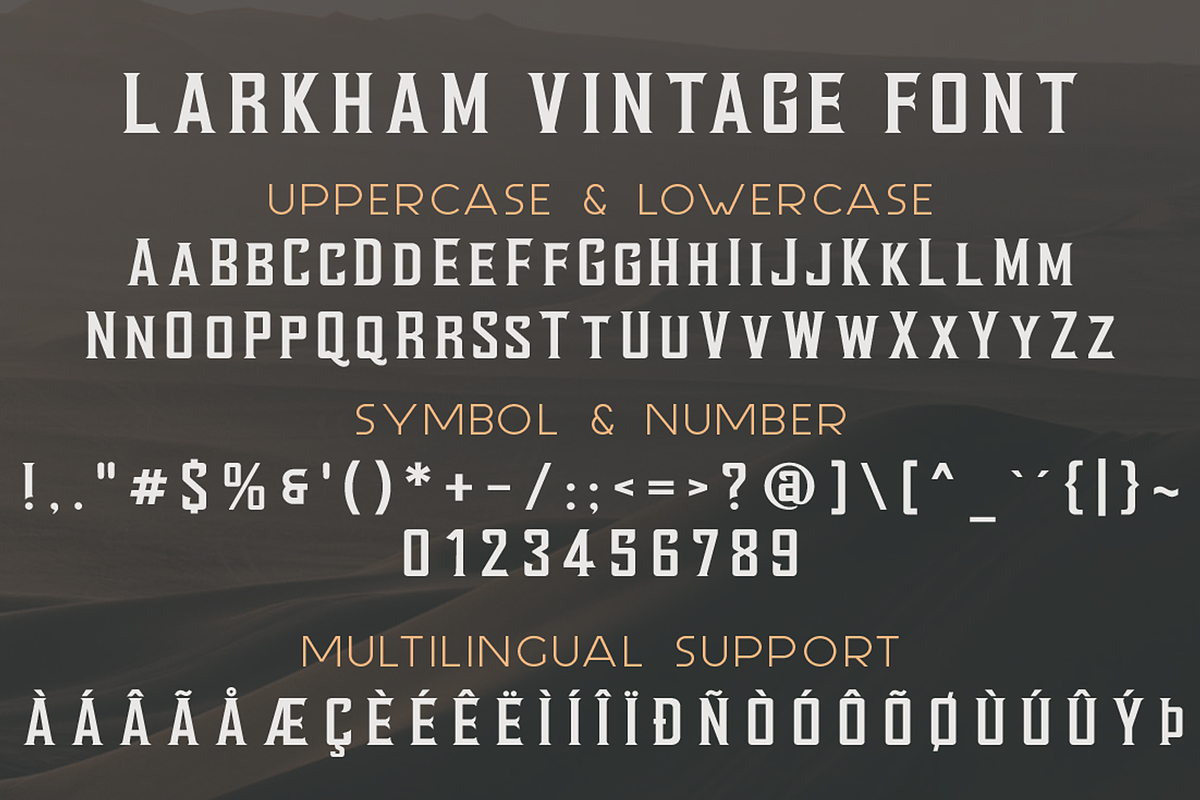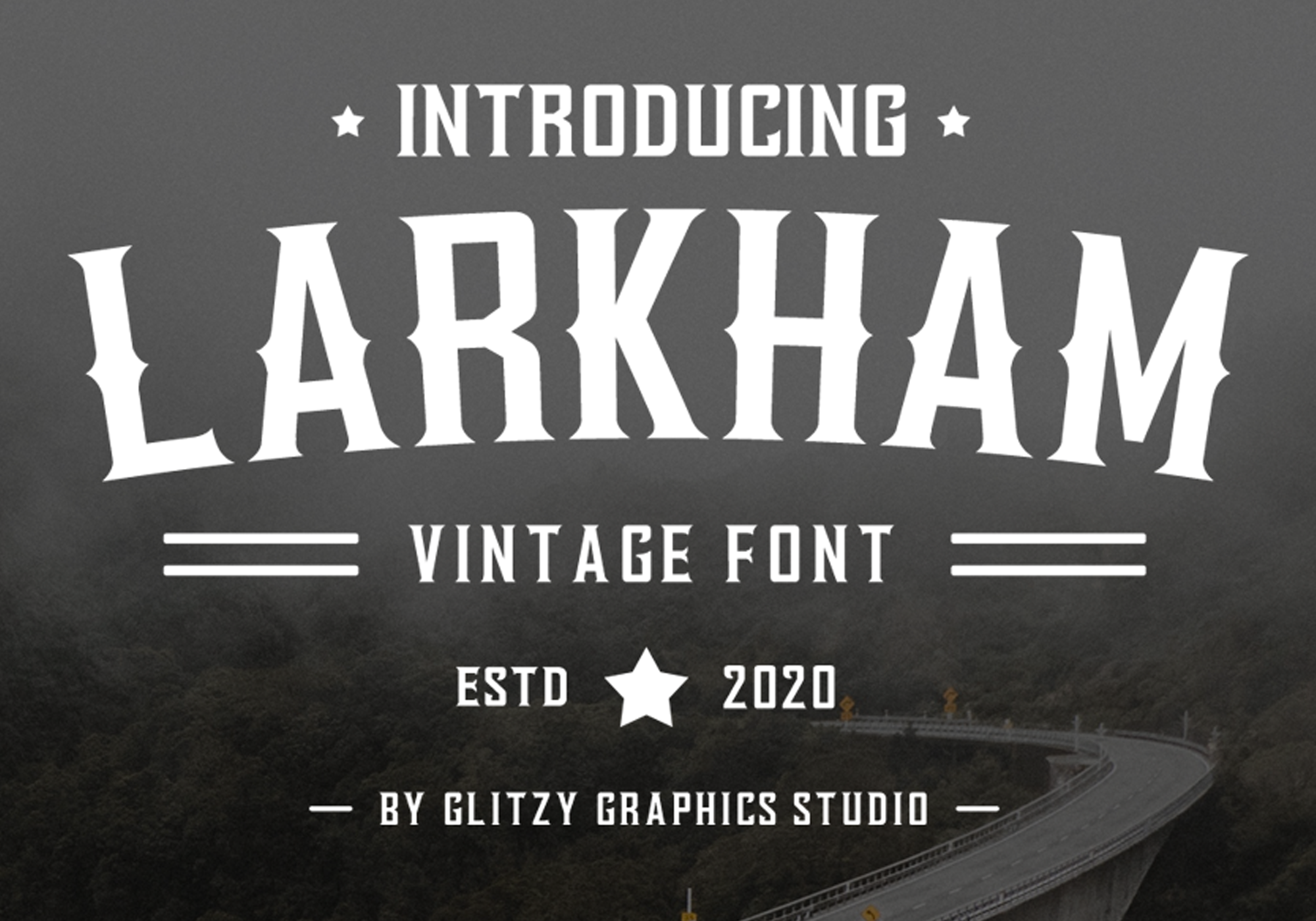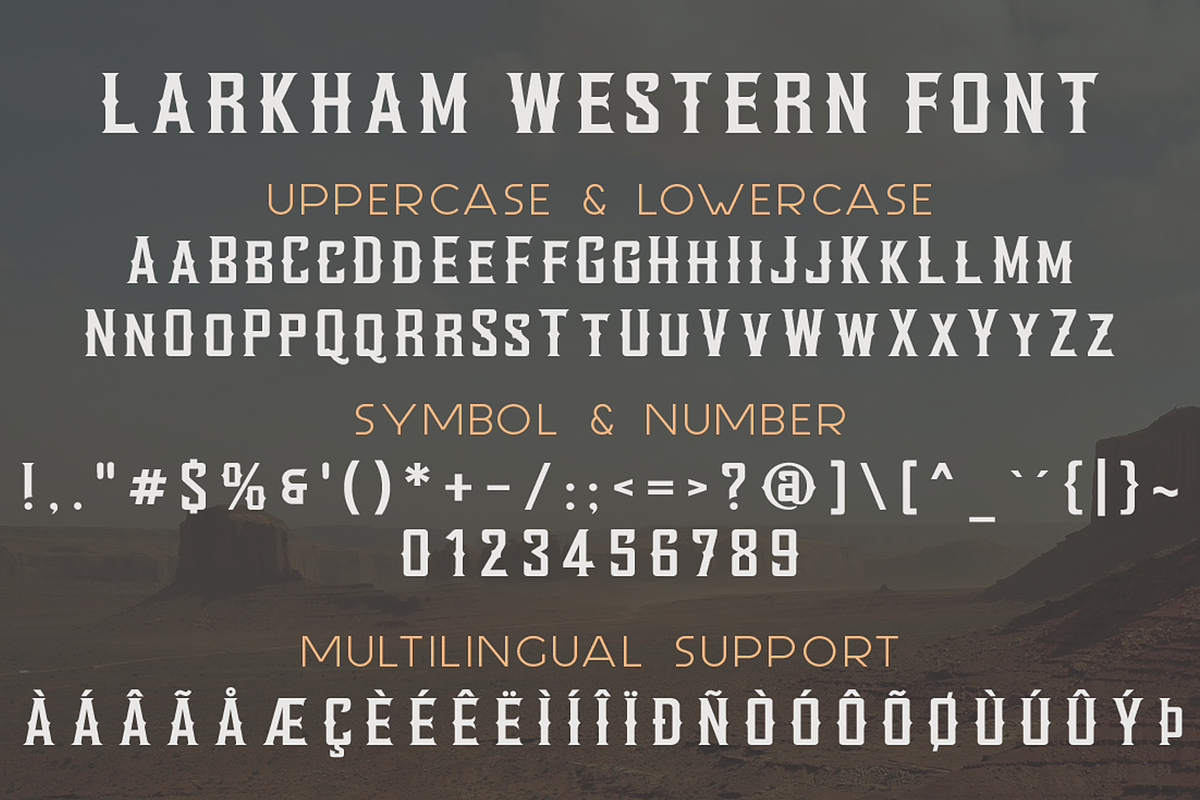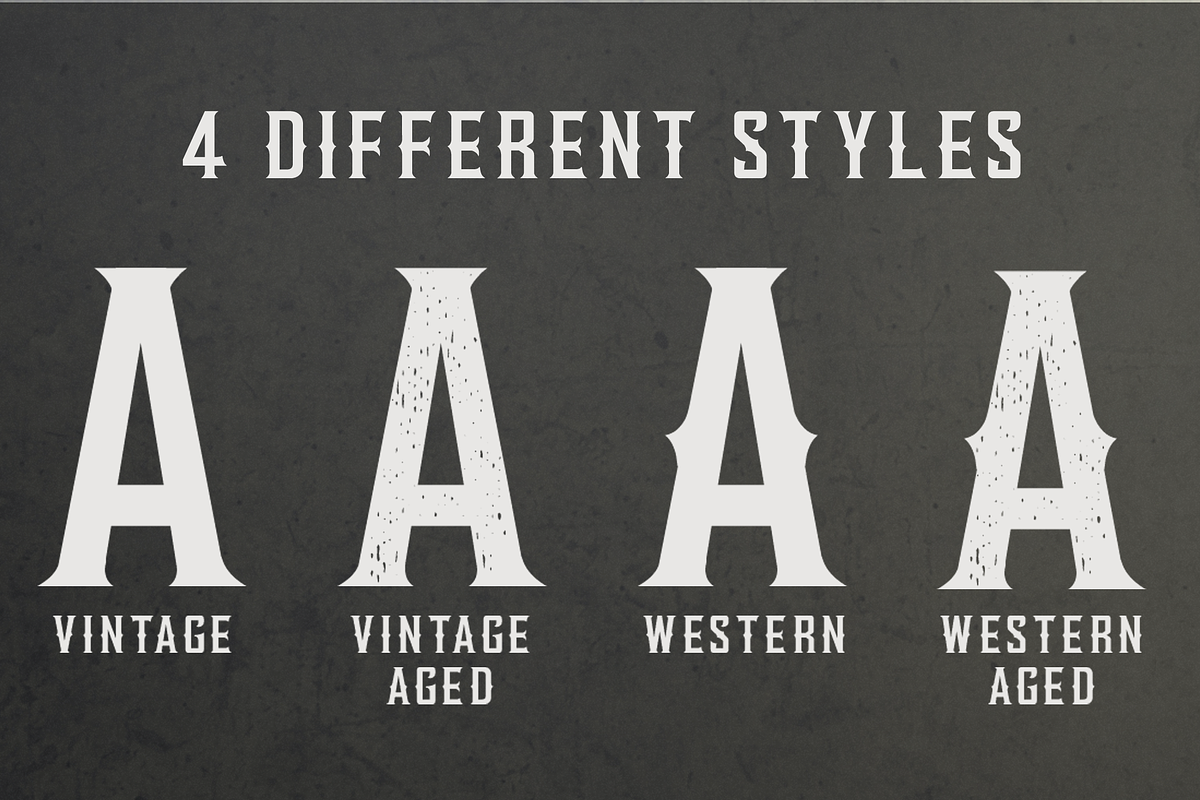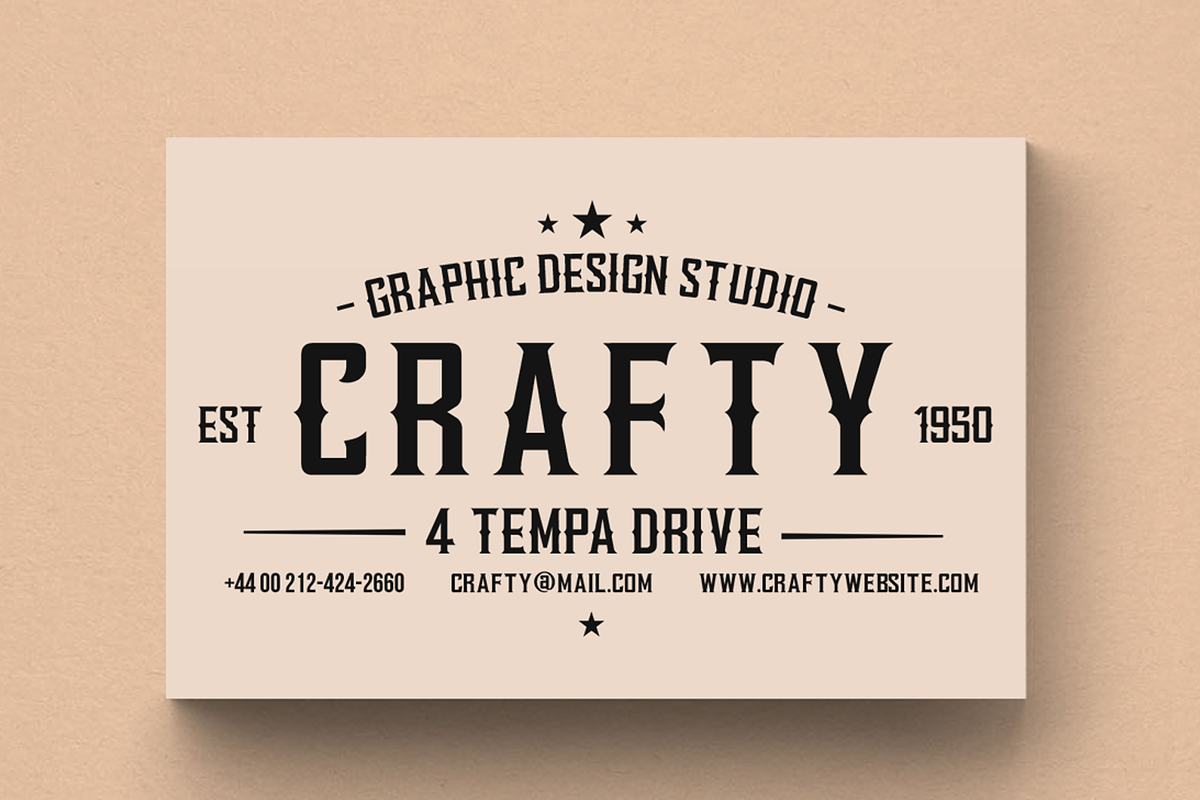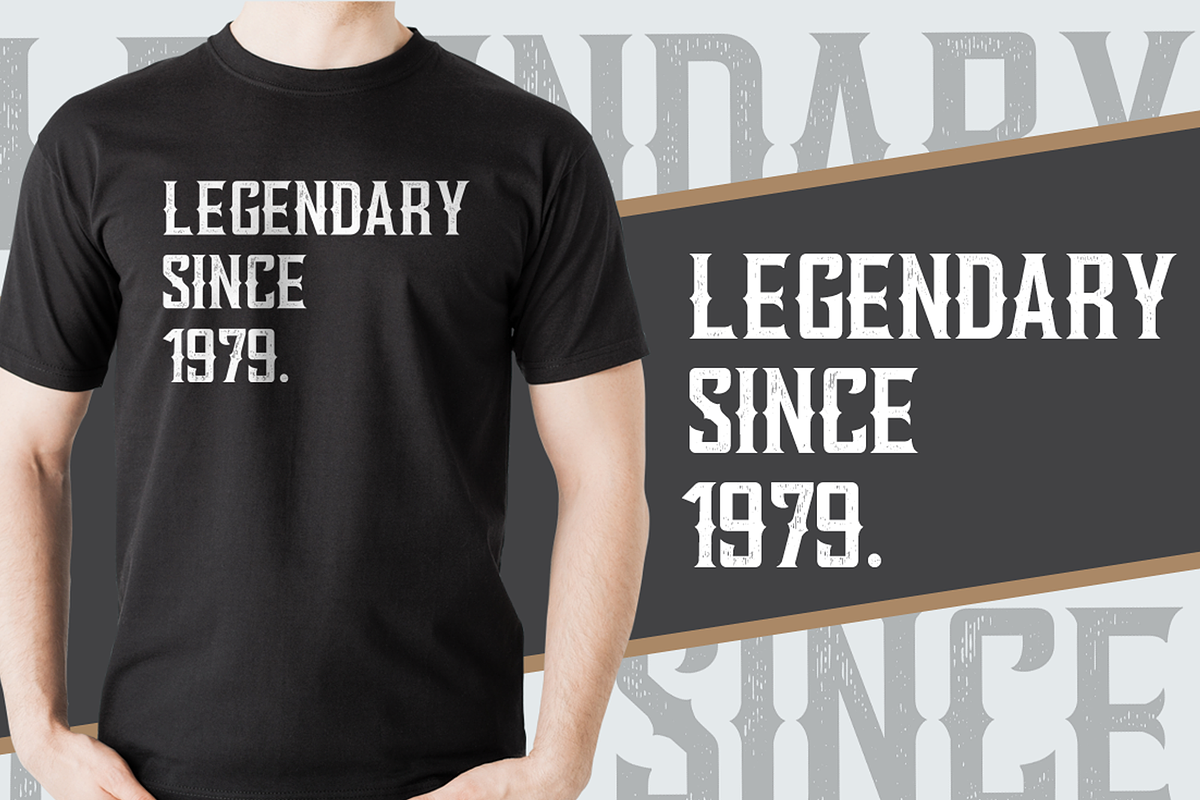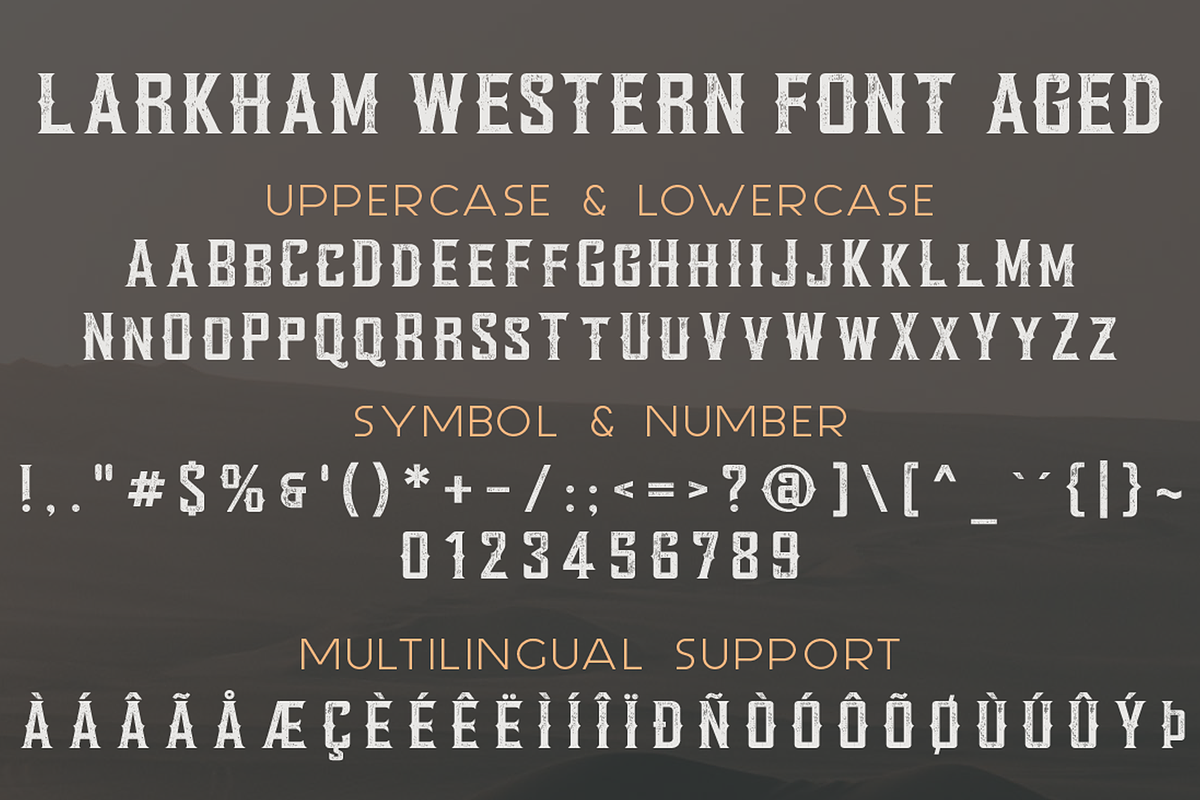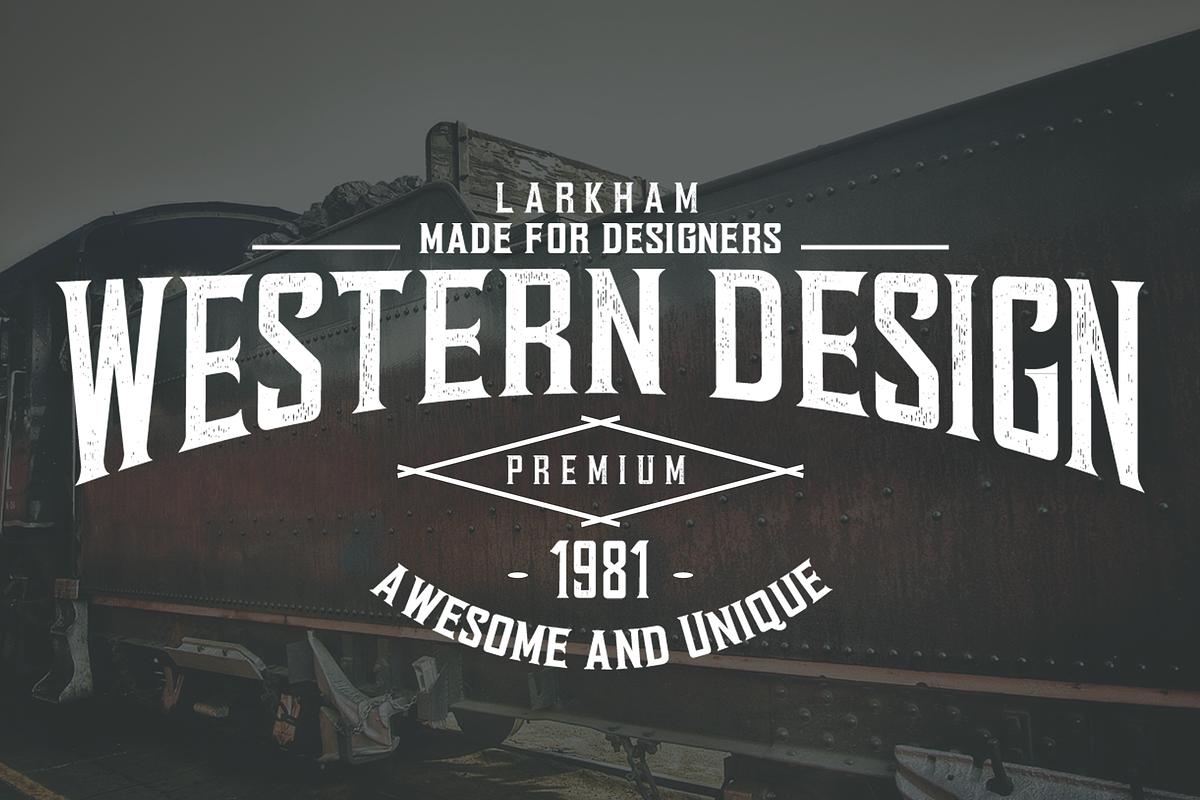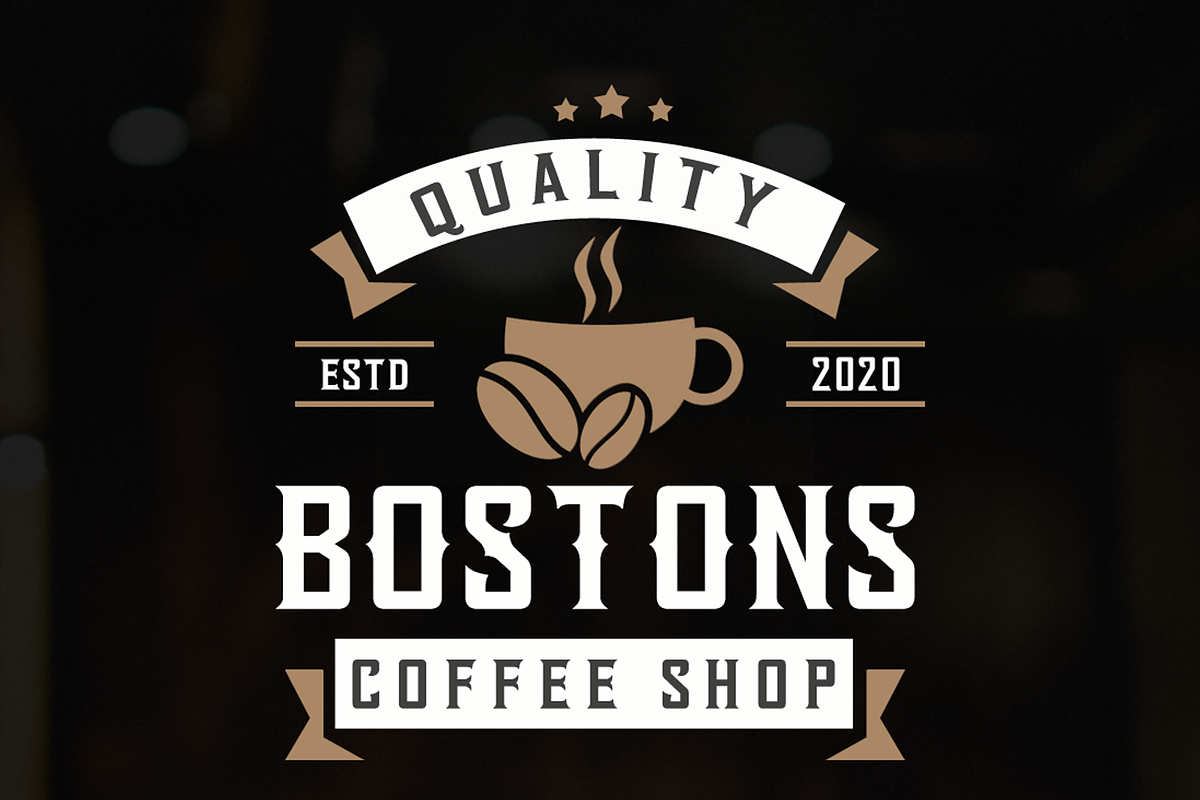
Larkham Vintage Font
We are so excited to announce **Larkham Vintage Font***. This font is ideal for adding an adventurous and vintage feel to your next project idea! It looks amazing at display sizes and is easily readable in text size.
There are two versions of this font: vintage and western and also available in clean or textured styles.